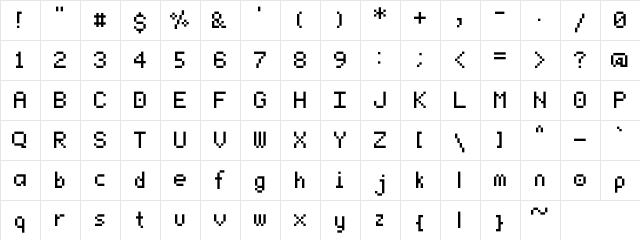
0v3rcl0ck3d Regular
Design Context for 0v3rcl0ck3d Typeface
0v3rcl0ck3d offers clean, dependable letterforms without strong stylistic allegiance, making it a practical choice for designers who need flexibility.
Pro Tip: Use 0v3rcl0ck3d in both headline and body roles to test its range before committing to a single application.